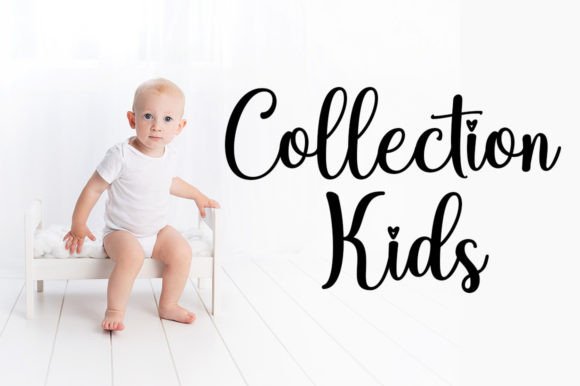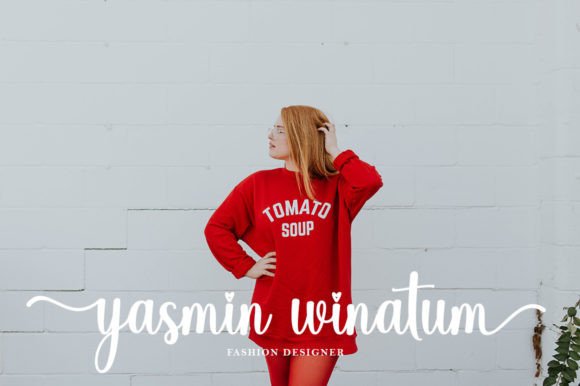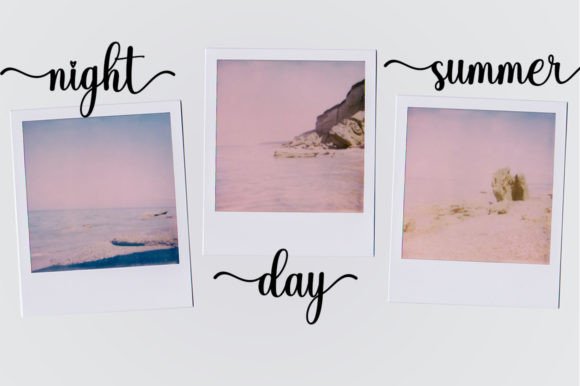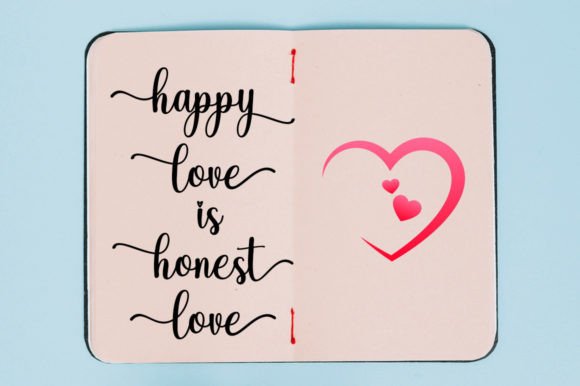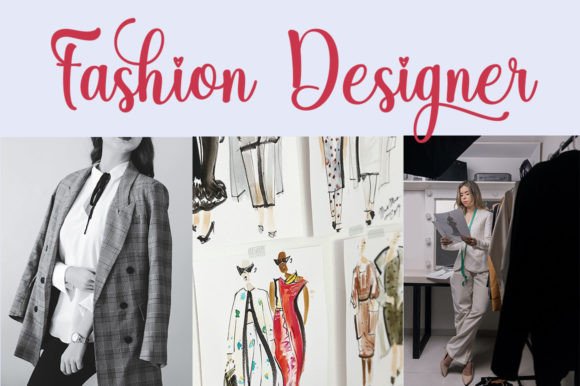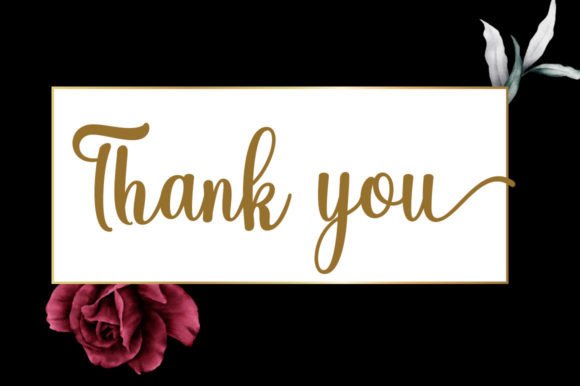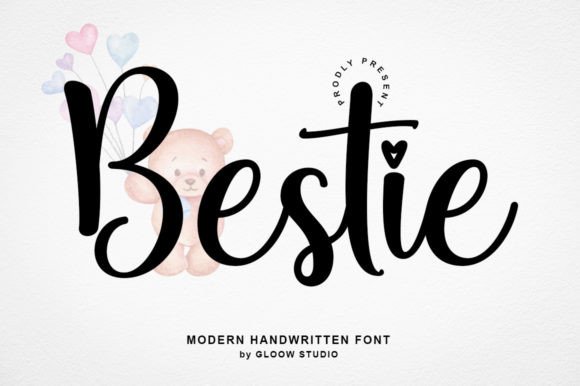
The Ultimate Guide to Bestie Font: A Fresh and Cute Calligraphy Font
I’ll never forget the moment I stumbled upon the perfect font for a client’s greeting card project. I had been searching for hours, trying out different fonts, but none seemed to capture the warmth and personality I was looking for. That was until I discovered Bestie Font – a new, fresh, and cute calligraphy font that stole my heart. In this article, I’ll share my experience with Bestie Font, its features, and how to make the most of it in your designs.
- 💕 Connectable hearts: a unique feature that adds a touch of whimsy to your designs
- 🎨 Fresh and modern calligraphy style: perfect for creating eye-catching visuals
- 📝 Versatile: suitable for various design projects, including greeting cards, branding materials, business cards, quotes, posters, and more
- ✅ Easy to read and understand: making it perfect for conveying messages
- ⚠️ Limited character set: Bestie Font might not have all the characters you need, so make sure to check the font specs before using it
- 🤯 Some users may find the connectable hearts feature tricky to use: but don’t worry, I’ll cover how to use it in the next section
The Story Behind Bestie Font
Bestie Font was designed with love and care by a team of creative designers who wanted to create a font that would bring joy and personality to designs. Inspired by the beauty of handwriting and the playfulness of calligraphy, Bestie Font was born. The designers aimed to create a font that would be versatile, easy to read, and perfect for creating eye-catching visuals.
Q: What is Bestie Font?
A: Bestie Font is a fresh and cute calligraphy font with a heart that can be connected, perfect for creating eye-catching visuals and adding a personal touch to designs.
Q: What design projects is Bestie Font suitable for?
A: Bestie Font is suitable for various design projects, including greeting cards, branding materials, business cards, quotes, posters, and more!